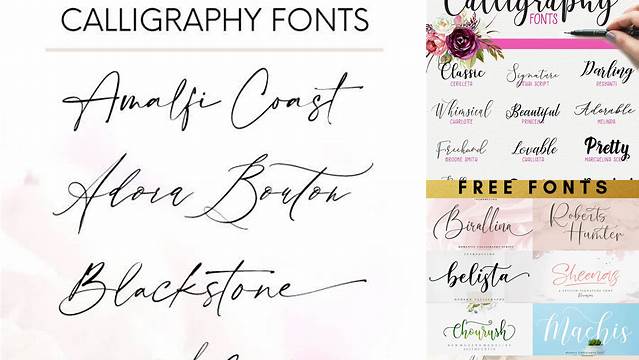
Modern Calligraphy Font Generator: Create Beautiful Lettering
Hey guys! Are you looking to add a touch of elegance and personality to your projects? Want to dive into the world of beautiful lettering? Well, you've come to the right place! This article is your ultimate guide to modern calligraphy fonts generator, exploring what they are, how they work, and how you can use them to create stunning designs. Whether you're a seasoned designer or just starting out, we'll cover everything you need to know to master the art of modern calligraphy.
What is Modern Calligraphy?
Before we jump into generators, let's quickly define what we mean by modern calligraphy. Unlike traditional calligraphy, which adheres to strict rules and historical styles, modern calligraphy is much more flexible and expressive. It blends traditional techniques with contemporary aesthetics, allowing for a wide range of styles, flourishes, and personal touches. Think flowing lines, varying stroke weights, and a playful approach to letterforms. It's about creating lettering that's both beautiful and unique, reflecting your individual style.
Modern calligraphy fonts are digital typefaces designed to mimic the look and feel of hand-lettered modern calligraphy. They capture the essence of flowing strokes, elegant curves, and the unique variations that come with hand lettering. These fonts are incredibly versatile and can be used for a variety of projects, from wedding invitations and branding materials to social media graphics and website design. The beauty of modern calligraphy fonts lies in their ability to instantly add a touch of sophistication and personality to any design. They bridge the gap between traditional artistry and digital convenience, making it easier than ever to incorporate stunning lettering into your work. Whether you're crafting a logo, designing a poster, or simply adding flair to a document, these fonts provide an accessible way to achieve a handcrafted aesthetic. Modern calligraphy embodies a sense of fluidity and grace, making it a favorite among designers and creatives looking to infuse their projects with a personal touch. By utilizing the variations in thickness and the delicate curves that characterize this style, you can create pieces that feel both contemporary and timeless. These fonts are not just about aesthetics; they also represent a connection to the rich history of lettering, reimagined for the digital age. So, when you choose a modern calligraphy font, you're not just selecting a typeface—you're embracing a form of art that has evolved over centuries, now made accessible through technology. This blend of tradition and innovation is what makes modern calligraphy fonts so compelling and essential in today's design landscape. The charm of modern calligraphy extends beyond mere legibility; it's about the emotional connection it creates. The swooping lines and elegant forms evoke feelings of romance, sophistication, and individuality, making it perfect for projects that aim to leave a lasting impression. From elegant wedding stationery to heartfelt greeting cards, the application of modern calligraphy fonts can transform ordinary text into extraordinary art. The accessibility of these fonts also means that you don't need to be a professional calligrapher to enjoy the beauty of this style. With a few clicks, you can incorporate stunning lettering into your designs, allowing your creativity to flow freely. This democratization of artistry is one of the key reasons why modern calligraphy has become so popular, enabling more people to express themselves through beautiful typography. As you explore the world of modern calligraphy fonts, you'll discover a vast array of styles, each with its unique personality and charm. This variety ensures that you can find the perfect font to match the tone and style of your project, whether you're aiming for a classic, romantic, or contemporary feel.
What is a Modern Calligraphy Font Generator?
Now, let's talk about modern calligraphy font generator. These tools are designed to help you create custom lettering designs, often without the need for specialized software or skills. They come in various forms, from online tools that let you type text and instantly see it rendered in different calligraphy styles, to software programs that offer more advanced customization options.
Think of a modern calligraphy font generator as your personal lettering assistant. It takes your input text and transforms it into a beautiful, flowing script that mimics the look of hand-lettered calligraphy. These generators typically offer a range of font styles to choose from, allowing you to experiment with different looks and find the perfect fit for your project. Some generators also provide customization options, such as adjusting letter spacing, adding flourishes, and changing the overall slant or weight of the font. The key benefit of using a modern calligraphy font generator is its accessibility. You don't need to be a skilled calligrapher or have years of experience to create stunning lettering. These tools democratize the art of calligraphy, making it available to anyone who wants to add a touch of elegance to their designs. This ease of use makes modern calligraphy font generators particularly valuable for projects with tight deadlines or limited resources. Instead of spending hours hand-lettering a design, you can quickly generate a beautiful script in minutes. The flexibility offered by these tools is another significant advantage. You can easily try out different styles, sizes, and arrangements, ensuring that your lettering perfectly complements your overall design. This experimentation can lead to unique and creative outcomes that you might not have achieved with traditional methods. In addition, many modern calligraphy font generators come with pre-designed templates and graphics, further streamlining the design process. These resources can be a great starting point for beginners, providing inspiration and guidance as they explore the possibilities of modern calligraphy. By using a generator, you can also save time and effort on tasks such as kerning and leading, which can be time-consuming when done manually. The software handles these details automatically, ensuring that your lettering looks polished and professional. Overall, modern calligraphy font generators are powerful tools for anyone looking to incorporate beautiful lettering into their projects, whether for personal or professional use. They combine the artistry of calligraphy with the efficiency of digital technology, making it easier than ever to create stunning designs. The blend of convenience and creativity is what makes these generators so appealing, opening up the world of modern calligraphy to a wider audience. As technology advances, these tools continue to evolve, offering even more features and flexibility, further enhancing their value in the design landscape.
Types of Modern Calligraphy Font Generators
There are several types of modern calligraphy font generator available, each with its own strengths and weaknesses. Let's take a look at some common categories:
- Online Generators: These are web-based tools that allow you to generate calligraphy fonts directly in your browser. They're often free or offer a free trial, making them a great option for beginners or those who need a quick solution. Online modern calligraphy font generators are incredibly accessible. You can use them from any device with an internet connection, without the need to download or install any software. This makes them ideal for quick projects or when you're working on the go. Many of these tools offer a user-friendly interface, allowing you to simply type in your text and choose from a variety of font styles. You can often preview the results in real-time, making it easy to experiment with different options. Another advantage of online generators is that they often come with a library of pre-designed templates and graphics that you can use as inspiration or incorporate into your designs. This can be particularly helpful if you're new to calligraphy and looking for a starting point. However, it's important to note that online generators may have limitations in terms of customization options. Some tools may only offer a limited selection of fonts or may not allow you to adjust spacing, kerning, or other details. Additionally, the quality of the generated fonts can vary depending on the tool. Some online generators may produce fonts that look somewhat generic or lack the finesse of hand-lettered calligraphy. Despite these limitations, online modern calligraphy font generators are a valuable resource for anyone looking to create beautiful lettering quickly and easily. They are a great way to explore different styles and find a font that suits your project. The convenience and accessibility of these tools make them a staple in the design process for many people, whether they are professionals or hobbyists. As technology continues to evolve, we can expect to see even more sophisticated online generators emerge, offering greater customization options and higher-quality results. This ongoing development is making the art of modern calligraphy more accessible than ever, allowing a broader audience to incorporate elegant lettering into their creative work. The ease of use and instant results offered by online generators mean that anyone can add a touch of sophistication to their designs, regardless of their skill level or experience.
- Software-Based Generators: These are downloadable programs that offer more advanced features and customization options. They're typically a better choice for professional designers or those who need to create high-quality calligraphy for commercial projects. Software-based modern calligraphy font generators provide a level of control and precision that online tools often cannot match. These programs typically offer a wide range of font styles, as well as extensive customization options, allowing you to fine-tune every aspect of your lettering. You can adjust letter spacing, kerning, leading, and even the individual shapes of the letters themselves. This level of detail makes software-based generators ideal for creating truly unique and professional-looking calligraphy. Another advantage of these programs is that they often integrate with other design software, such as Adobe Photoshop and Illustrator. This allows you to seamlessly incorporate your generated calligraphy into larger projects, making the design process more efficient. Software-based generators also tend to offer more advanced features, such as the ability to add flourishes, ligatures, and other decorative elements. These features can help you create calligraphy that is truly distinctive and reflects your personal style. However, software-based generators also come with their own set of considerations. They typically require a one-time purchase or a subscription fee, which can be a barrier for some users. Additionally, they may have a steeper learning curve compared to online tools, as they often offer a wider range of features and settings. Despite these considerations, software-based modern calligraphy font generators are an essential tool for professional designers and anyone who needs to create high-quality calligraphy on a regular basis. The precision, control, and integration with other design software make them a worthwhile investment for those who are serious about their lettering. The ability to fine-tune every detail of your calligraphy ensures that the final result is exactly what you envisioned, allowing you to create truly stunning designs. As technology advances, software-based generators continue to evolve, offering even more features and capabilities, solidifying their place as a cornerstone of the design industry.
- Mobile Apps: For those who want to create calligraphy on the go, mobile apps are a great option. Many apps offer a user-friendly interface and a variety of font styles, making it easy to create beautiful lettering on your smartphone or tablet. Mobile apps for modern calligraphy font generation offer a unique blend of convenience and creativity. They allow you to create stunning lettering wherever you are, whether you're on your commute, waiting in line, or simply relaxing at home. The user-friendly interfaces of these apps make it easy to experiment with different styles and customize your designs. Many mobile apps offer a range of font styles, from elegant scripts to playful brush lettering, allowing you to find the perfect fit for your project. You can often adjust the size, spacing, and color of your text, giving you a good degree of control over the final result. Some apps also offer features such as tracing guides, which can be helpful for beginners who are learning the basics of calligraphy. These guides show you how to form the letters correctly, helping you develop your own style. Another advantage of mobile apps is that they often integrate with social media platforms, making it easy to share your creations with friends and followers. This can be particularly useful for businesses or individuals who want to use calligraphy in their social media content. However, it's important to note that mobile apps may have limitations compared to desktop software. The screen size of a smartphone or tablet can make it difficult to fine-tune the details of your lettering, and the customization options may be less extensive than those offered by software-based generators. Additionally, the quality of the generated fonts can vary depending on the app. Despite these limitations, mobile apps are a valuable tool for anyone who wants to create modern calligraphy on the go. They offer a convenient and accessible way to experiment with different styles and add a personal touch to your designs. The portability of these apps means that you can create beautiful lettering anytime, anywhere, making them a great option for busy individuals or those who are constantly on the move. As mobile technology continues to advance, we can expect to see even more sophisticated modern calligraphy font generation apps emerge, offering greater customization options and higher-quality results. This ongoing development is making the art of calligraphy more accessible than ever, allowing a wider audience to incorporate elegant lettering into their creative work.
How to Use a Modern Calligraphy Font Generator
Using a modern calligraphy font generator is typically a straightforward process. Here's a general overview of the steps involved:
- Choose Your Generator: Select the type of generator that best suits your needs and preferences (online, software-based, or mobile app). Consider factors such as cost, features, and ease of use. The choice of a modern calligraphy font generator can significantly impact your creative process and the final result. Online generators are a fantastic starting point for those new to calligraphy or needing a quick solution. Their accessibility and user-friendly interfaces allow for instant experimentation without the commitment of downloading software. However, for professionals or those seeking intricate customization, software-based generators offer a more robust set of tools. These programs often provide greater control over letterforms, spacing, and other fine details, ensuring a polished and personalized outcome. Mobile apps, on the other hand, cater to the on-the-go creative, allowing for spontaneous design sessions wherever inspiration strikes. The convenience of creating calligraphy on a smartphone or tablet is a major draw for many, especially those who enjoy integrating their digital work with social media platforms. When evaluating different generators, consider not only the features but also the cost. Many online generators offer free versions with limited capabilities, while software-based programs typically require a one-time purchase or subscription. Mobile apps often operate on a freemium model, offering basic features for free and charging for premium add-ons. Ease of use is another crucial factor. A generator with a clear and intuitive interface can save you time and frustration, allowing you to focus on the creative aspects of your project. Reading reviews and watching tutorials can provide valuable insights into the user experience of different generators. Ultimately, the best modern calligraphy font generator is the one that aligns with your specific needs, skill level, and budget. Whether you opt for the simplicity of an online tool, the precision of a software program, or the portability of a mobile app, the goal is to find a generator that empowers you to create beautiful and expressive calligraphy.
- Enter Your Text: Type the text you want to transform into calligraphy into the designated input field. This step may seem straightforward, but the text you choose plays a crucial role in the overall impact of your design. When using a modern calligraphy font generator, consider the length and style of your text. Shorter phrases or single words often lend themselves well to calligraphy, allowing the elegance of the font to truly shine. Longer passages may become overwhelming or difficult to read if rendered entirely in calligraphy, so it's important to strike a balance. The tone and style of your text should also align with the chosen font. For example, a romantic script might be perfect for a wedding invitation, while a bolder, more contemporary style could be better suited for a logo or branding materials. Before entering your text into the generator, take a moment to plan the composition and layout. Think about how the words will flow together and where you want to place emphasis. Experiment with different line breaks and arrangements to see what works best. Many modern calligraphy font generators offer features that allow you to adjust letter spacing, kerning, and other details, giving you even greater control over the final appearance. Don't be afraid to try out different options and see what looks most visually appealing. The text is the foundation of your calligraphy design, so it's worth taking the time to get it just right. By carefully considering the length, style, and composition of your text, you can ensure that your modern calligraphy is both beautiful and effective. Remember, the goal is to create lettering that not only looks elegant but also conveys your message clearly and impactfully.